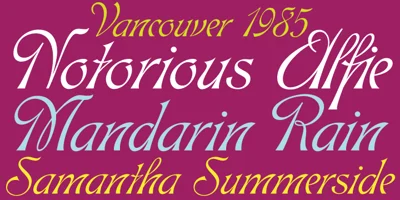
Hortensia Font is perfect for elegant wedding invitations, luxury beauty brand packaging, feminine lifestyle blogs, high-end fashion magazines, boutique hotel branding, floral design businesses, premium cosmetics labels, romantic greeting cards, and sophisticated social media content. This graceful typeface brings refined elegance and botanical charm to both digital and print design applications.
Hortensia Font is exciting because it captures the delicate beauty and natural grace of floral elements, making it an exceptional choice for designers who want to create sophisticated, feminine designs that exude luxury and refinement. Its flowing letterforms and organic curves provide the perfect balance between artistic elegance and practical readability, ensuring your projects convey premium quality and timeless sophistication.
The Hortensia Font family includes elegant script variations, decorative flourishes, and ornamental elements that enhance creative possibilities. Each character maintains consistent floral-inspired aesthetics while offering designers multiple styling options for customization, allowing for unique combinations that reflect individual brand personalities and create memorable visual experiences.